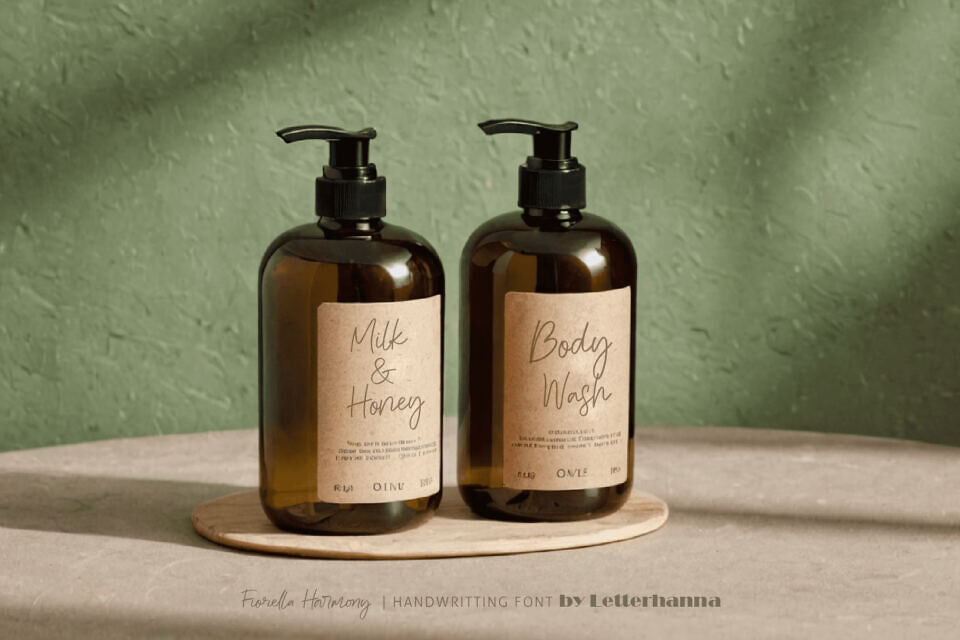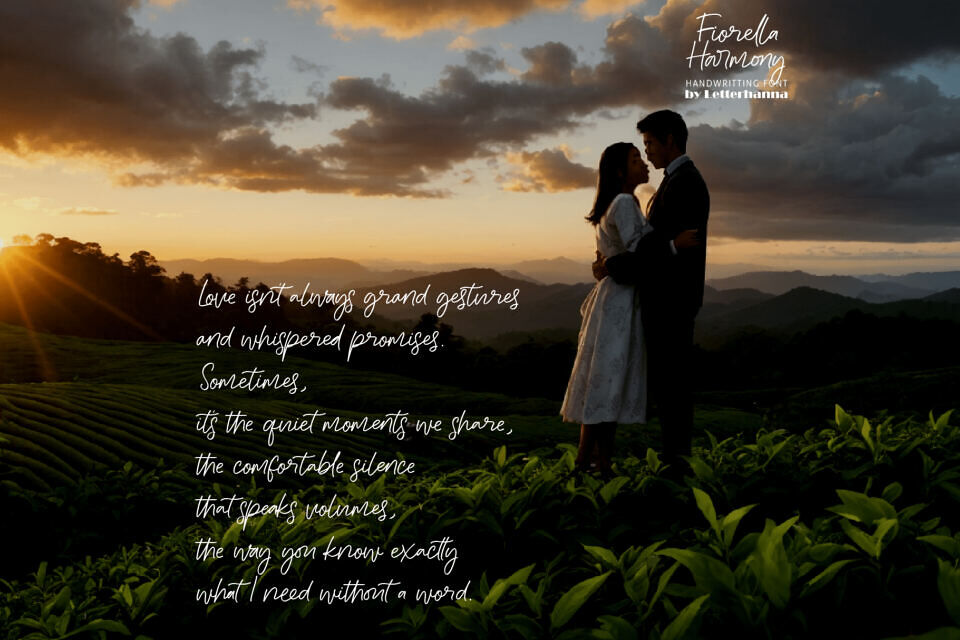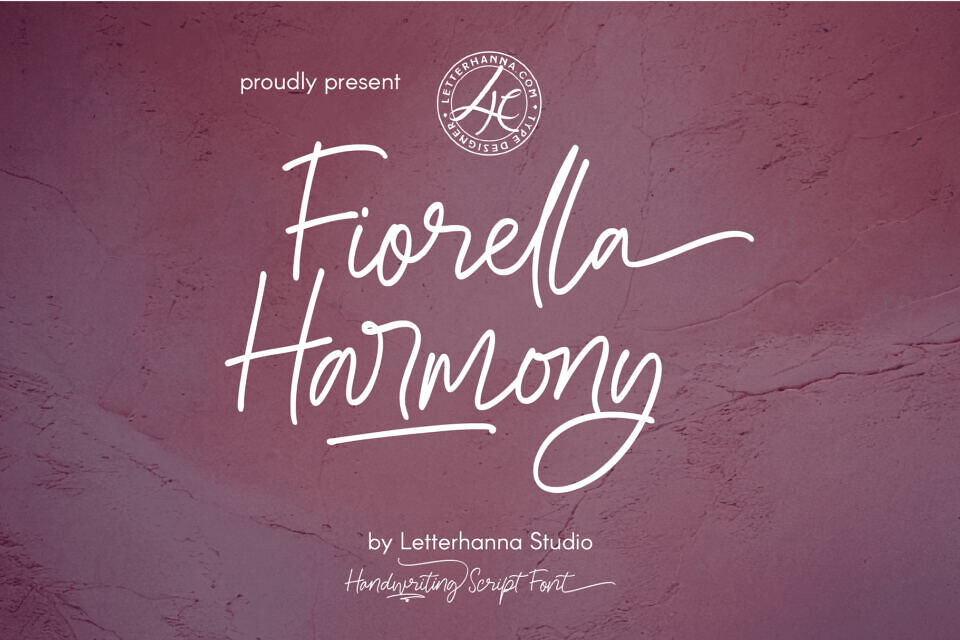
Fiorella Harmony Font
Indulge your creativity with Fiorella Harmony, a brand new handwritten script font designed to bring a touch of elegance and sophistication to your projects. Fiorella Harmony’s effortless flow and delicate curves make it perfect for adding a personal touch to wedding invitations, branding materials, and any design where a touch of handwritten charm is desired.
Whether you’re a seasoned designer or just starting out, Fiorella Harmony’s user-friendly design makes it easy to create stunning text effects. With its smooth letterforms and beautiful flourishes, Fiorella Harmony is sure to become your go-to font for adding a touch of handwritten magic to your designs.